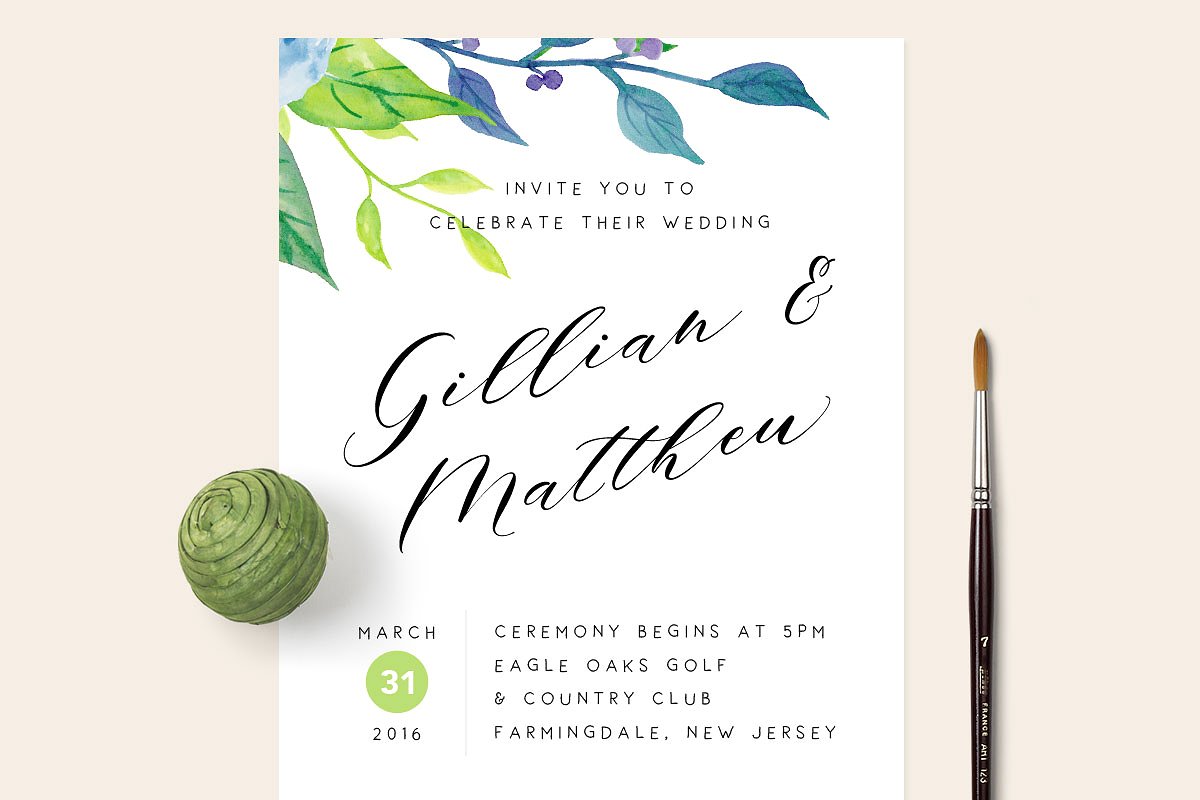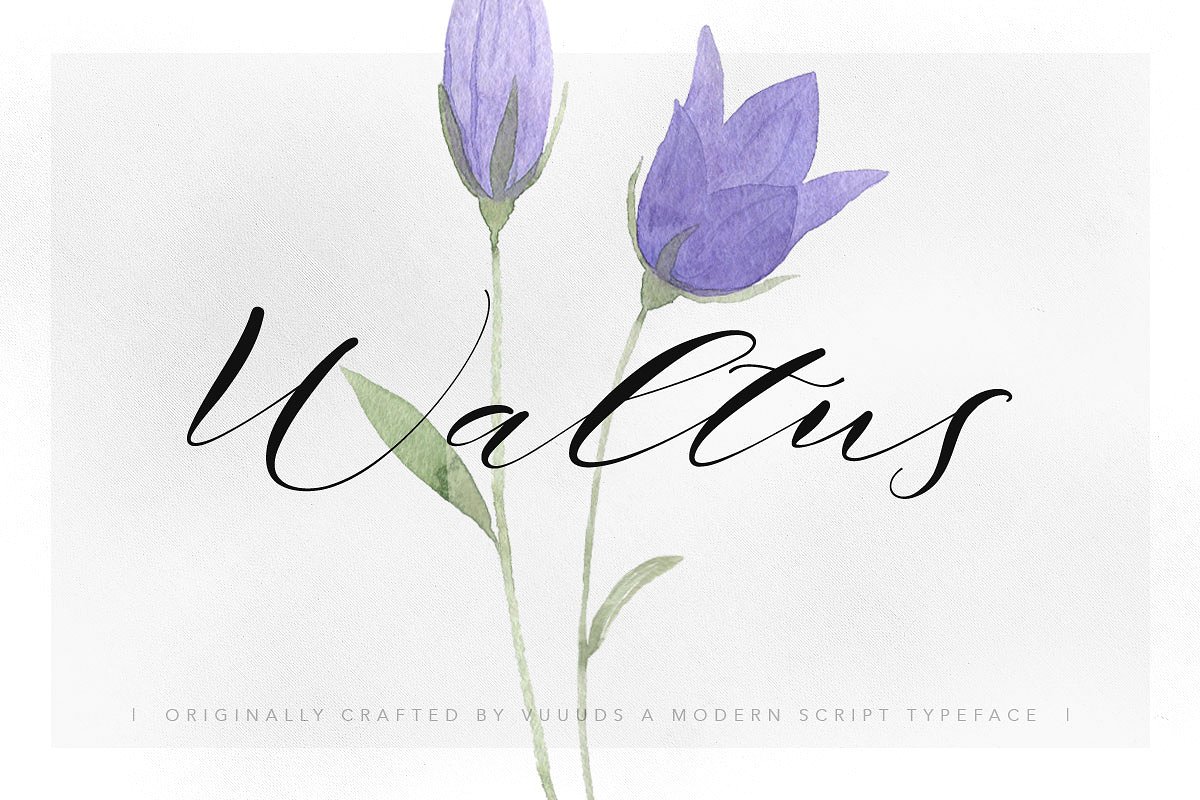
Waltus Script
Waltus Script Font
Waltus is modern script font, every single letters have been carefully crafted to make your text looks beautiful. With modern script style this font will perfect for many different project ex: quotes, blog header, poster, wedding, branding, logo, fashion, apparel, letter, invitation, stationery, etc.